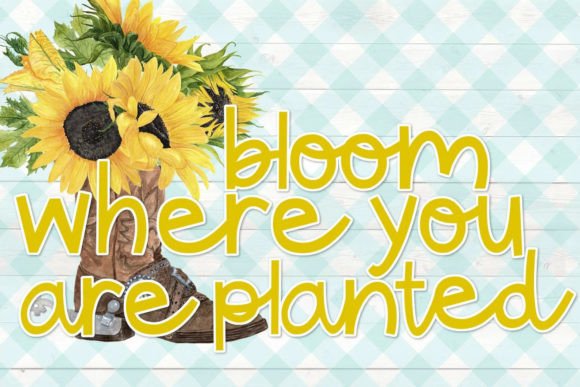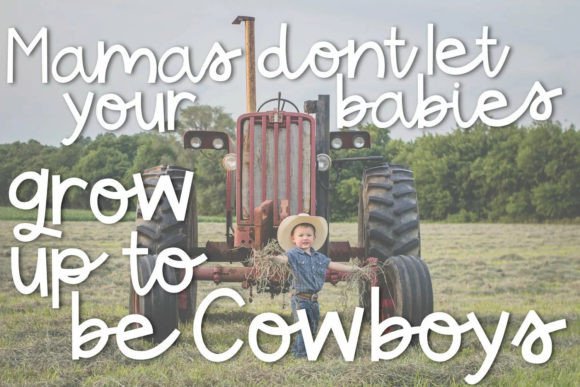
Rodeo Kings Font
About Rodeo Kings Font
“Introducing Rodeo Kings, a lively handwritten script font designed to bring a playful touch to your projects. Rodeo Kings is a thick script font with square edges, giving it a bold and dynamic appearance that will make a statement on your next project! Featuring optimized nodes for cutting, Rodeo Kings is perfect for various applications, including water bottles, cards, invitations, T-shirts, and more!
The thick script style of Rodeo Kings adds a sense of energy and boldness to your text. The square edges give it a distinctive look, making it stand out and ensuring that your text makes a visual impact on your projects.
One standout feature of Rodeo Kings is its optimized nodes for cutting. This makes it an excellent choice for those working with cutting machines, ensuring clean and precise cuts on various materials. Whether you’re crafting water bottle decals, personalized cards, or T-shirt designs, Rodeo Kings is ready to deliver professional-looking results.
Consider using Rodeo Kings on a variety of projects where a bold and lively script font is desired. Its versatility allows it to adapt to different design needs, making it a valuable asset for both personal and business projects.
In summary, Rodeo Kings is more than just a font; it’s a vibrant and practical design tool. With its thick script style, square edges, and optimized nodes for cutting, Rodeo Kings is ready to add a bold and dynamic touch to your creative projects. Try it on your next endeavor and let Rodeo Kings bring a lively flair to your designs!”